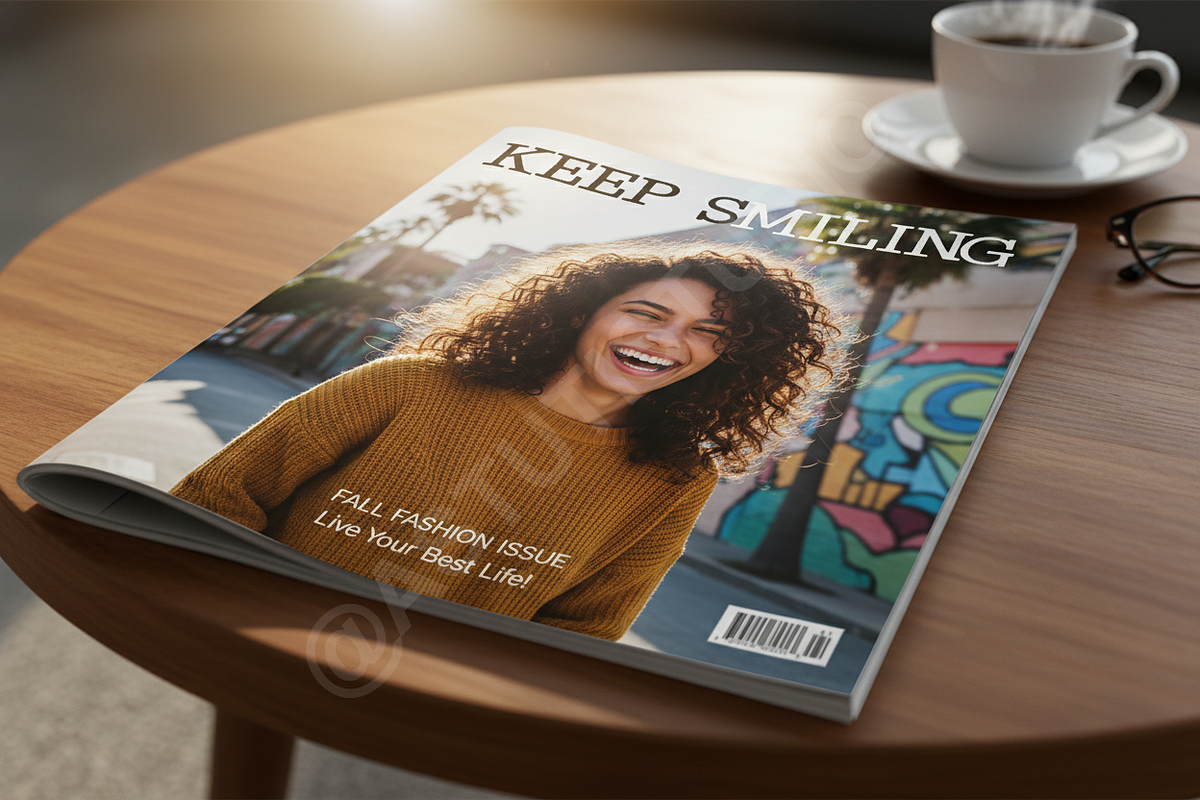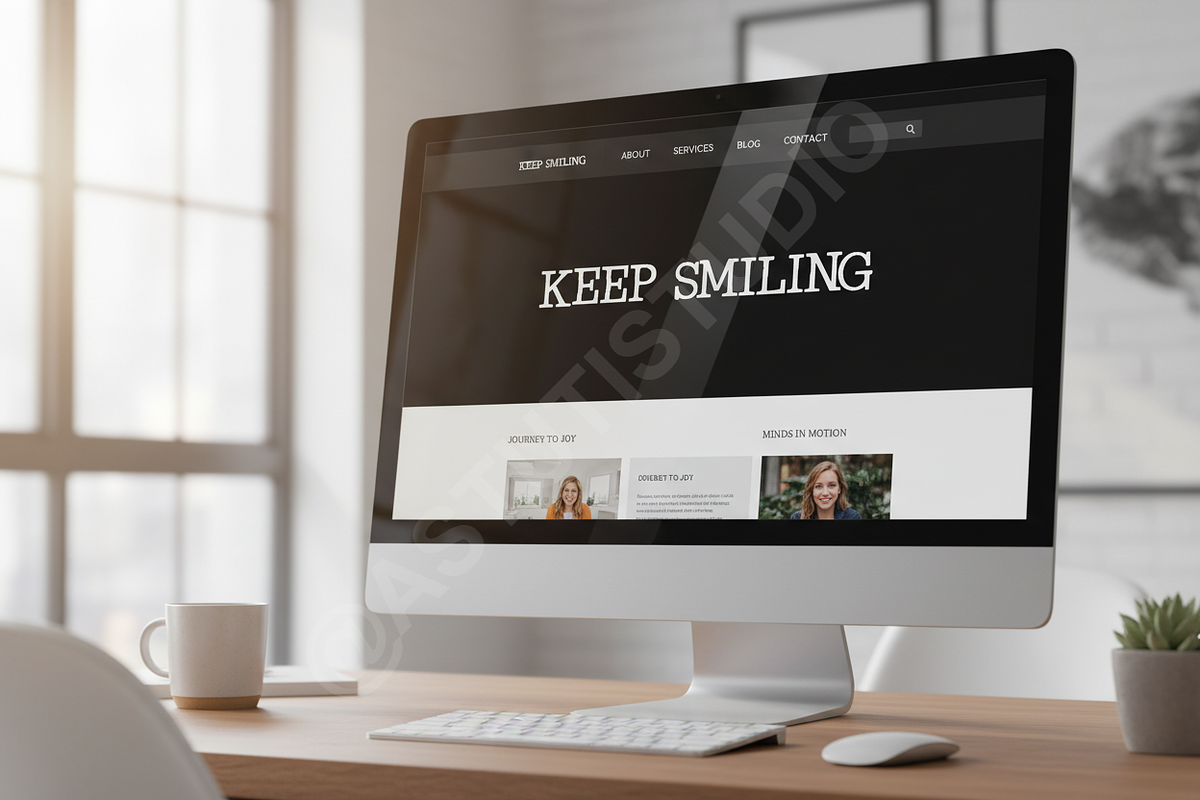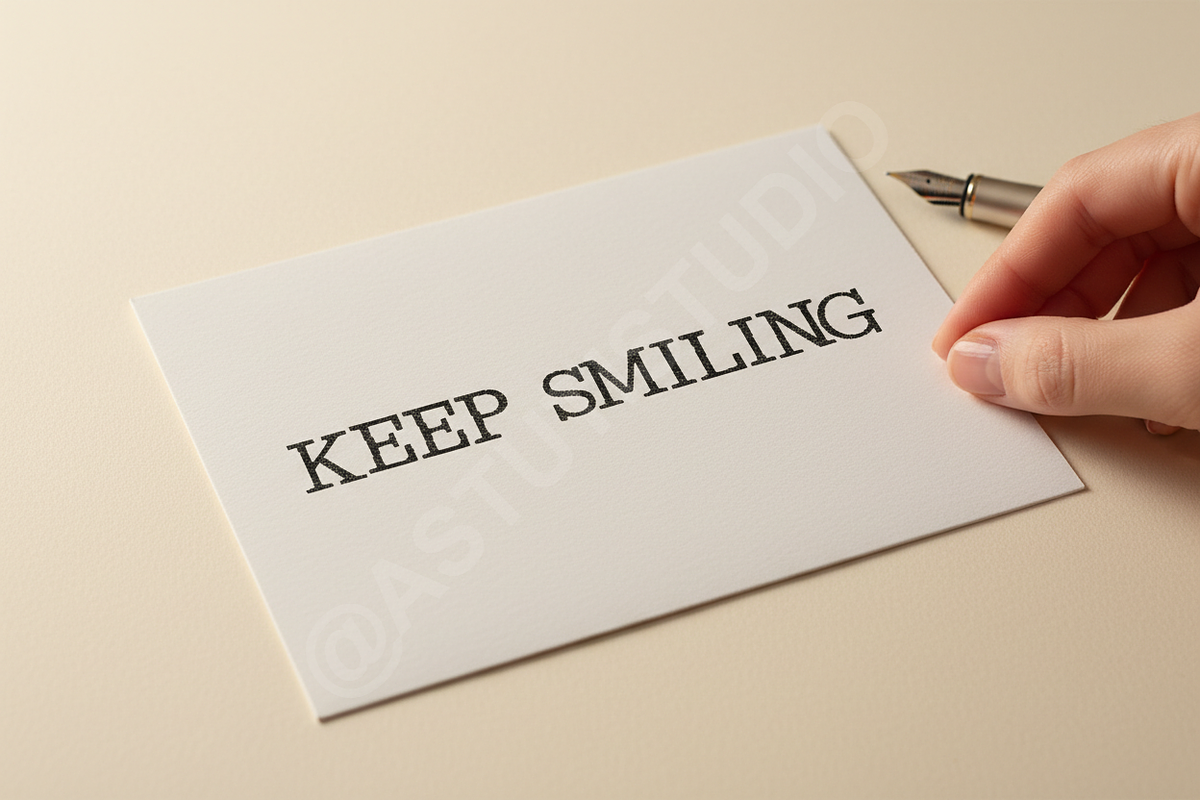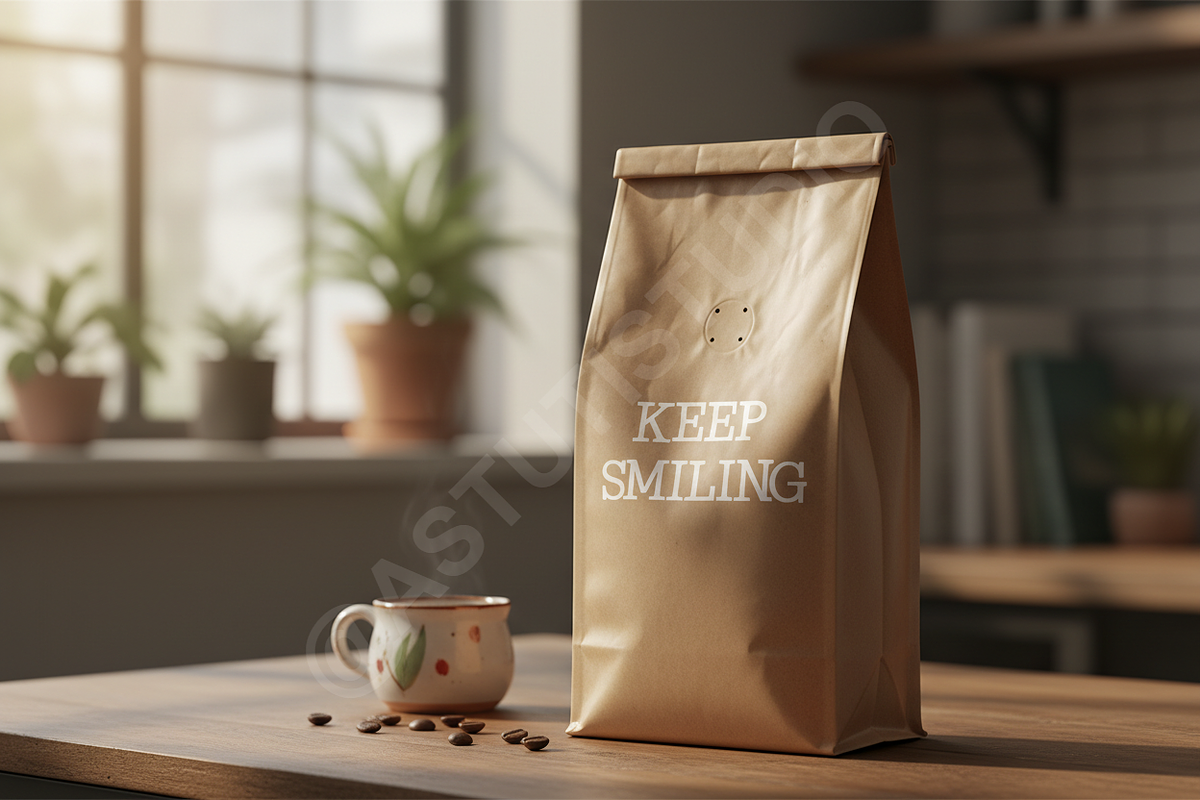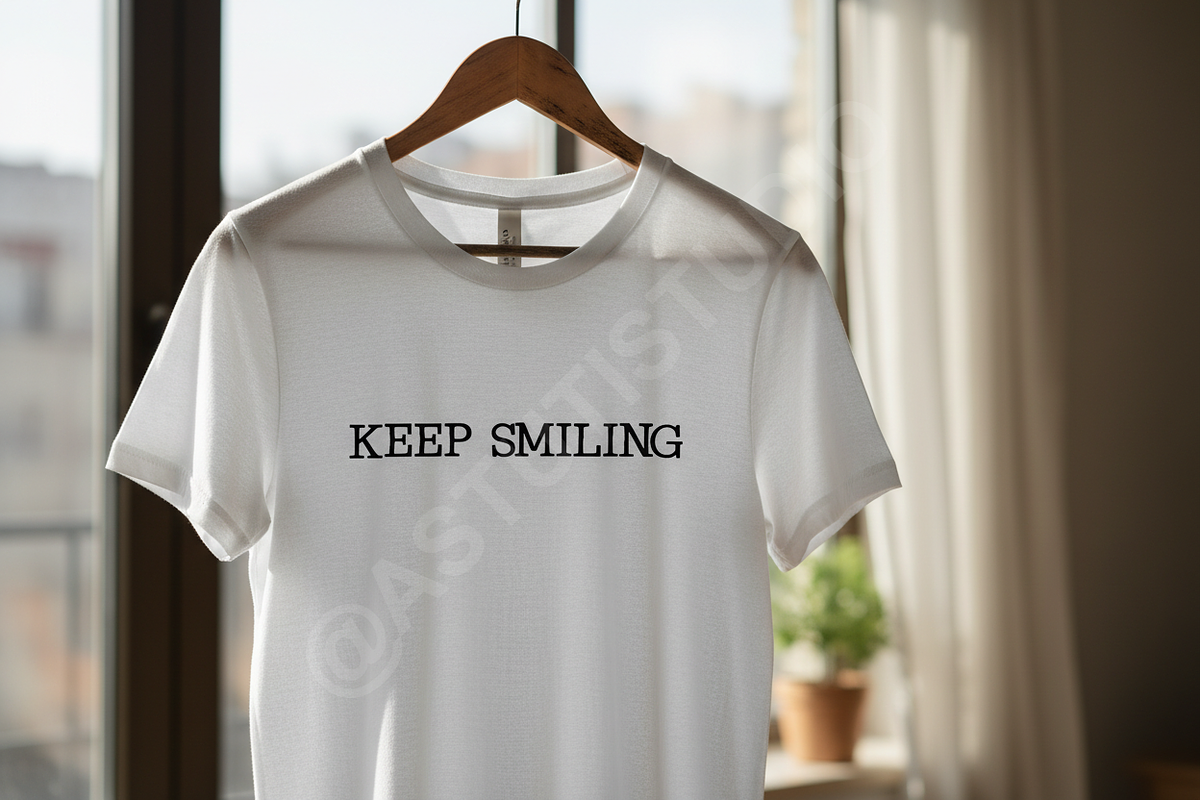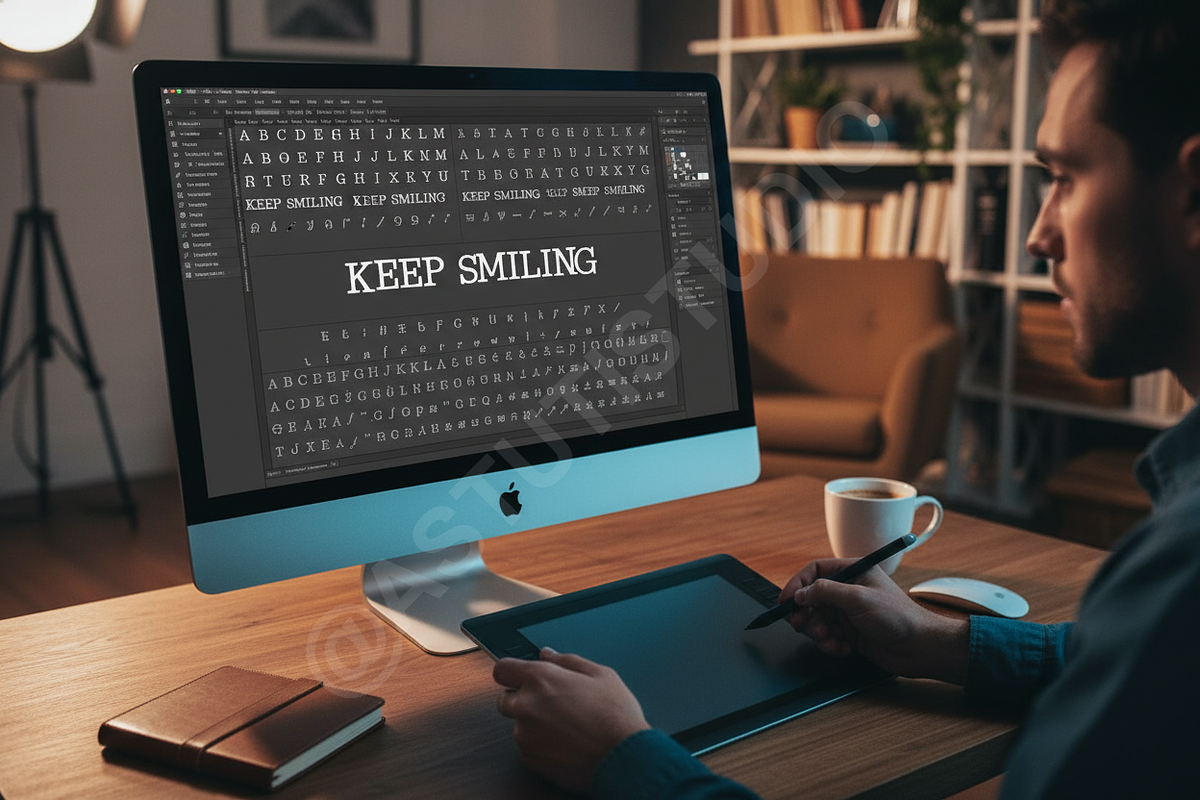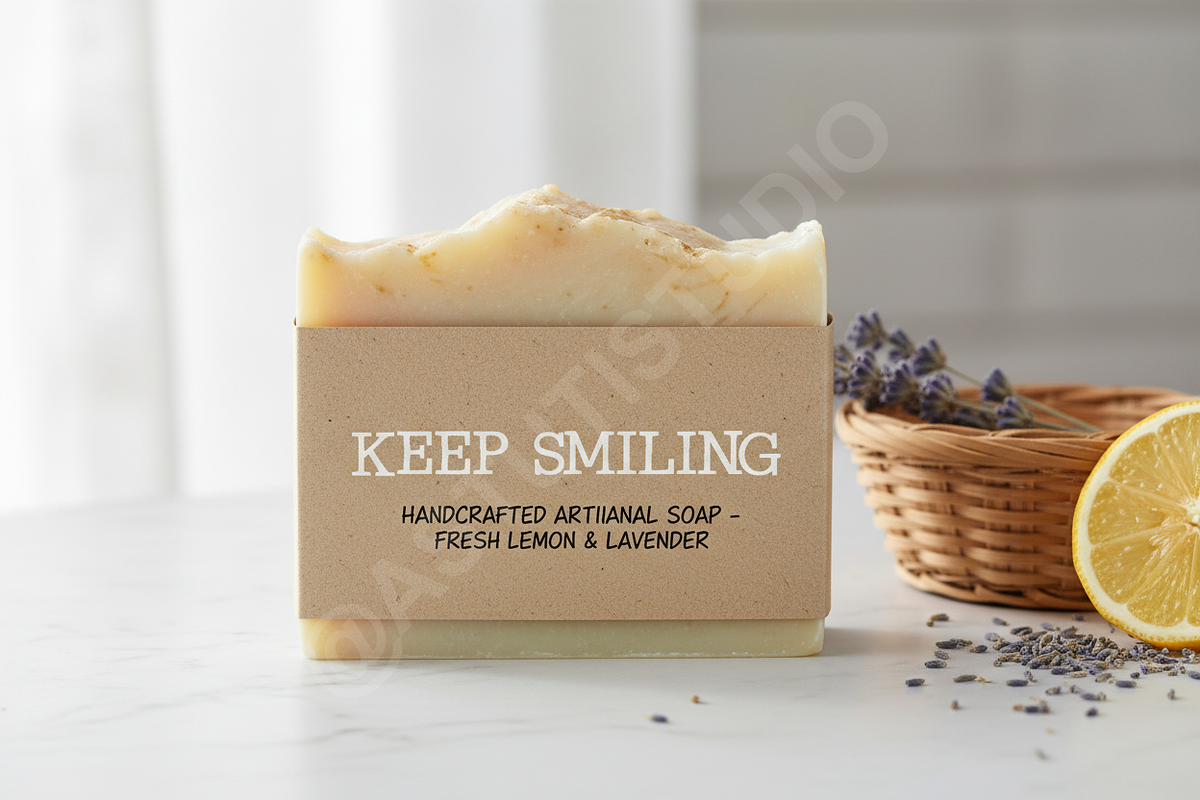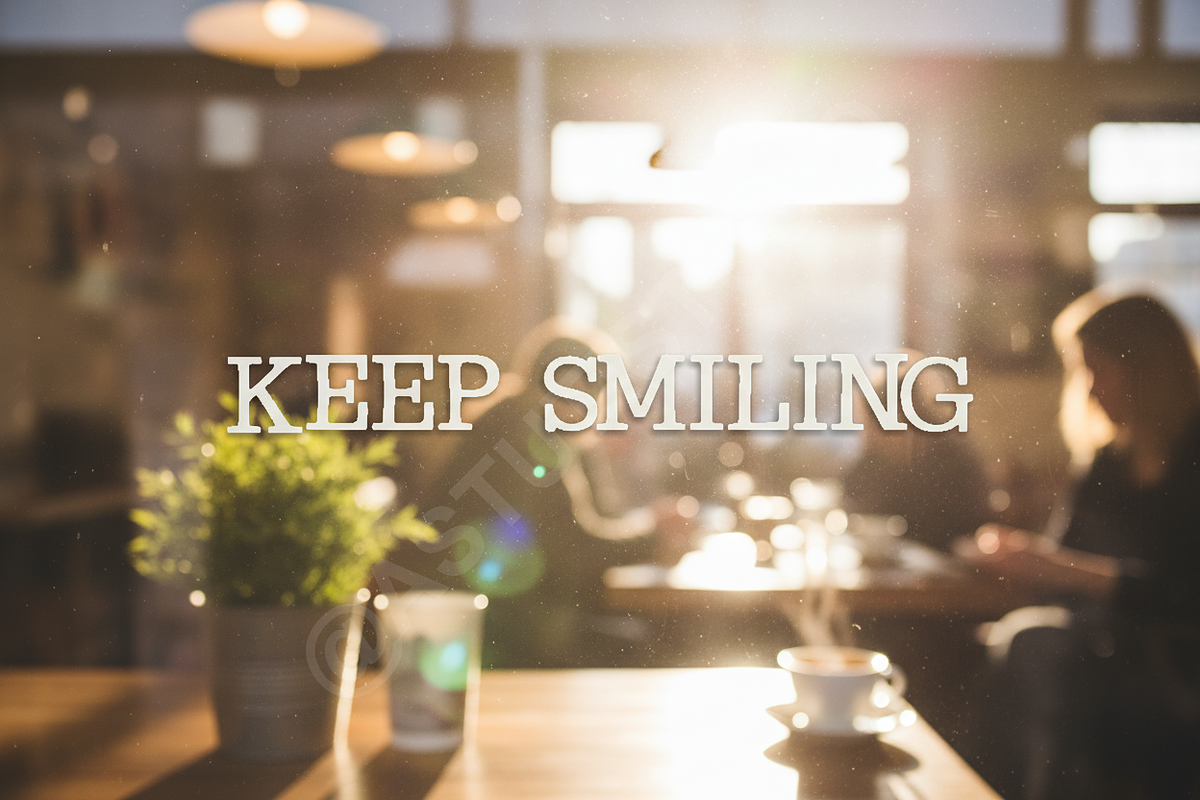
Heyo | A Premium Modern Sans Serif T
INTRODUCTION Heyo is a refined and contemporary sans serif typeface crafted for high-end brand identities and editorial excellence. With its minimalist structure and sophisticated silhouette, Heyo offers a premium feel that elevates any creative project from concept to completion.
PERFECT FOR This font is ideal for luxury branding, high-fashion editorial layouts, minimalist social media content, and high-impact headlines. Whether you are designing a sleek logo or a web interface, Heyo provides the clarity and elegance required for modern studio aesthetics.
- Clean and minimalist geometric design
- Optimized kerning and balanced letterforms
- Full uppercase and lowercase character sets
- Comprehensive multilingual support
- Advanced OpenType features including ligatures